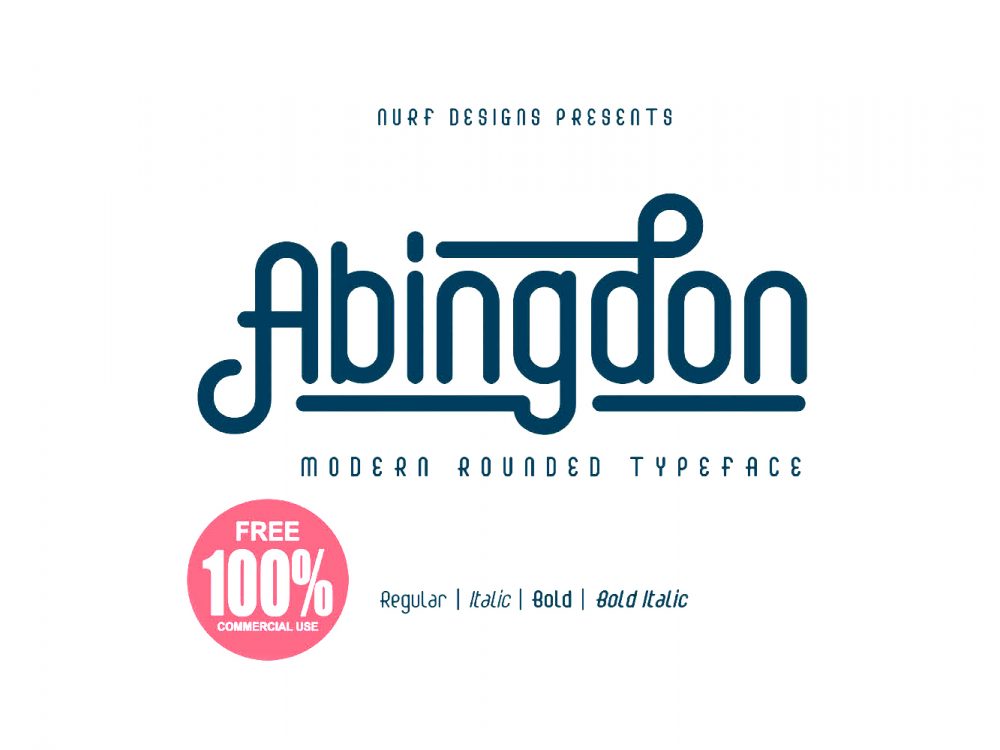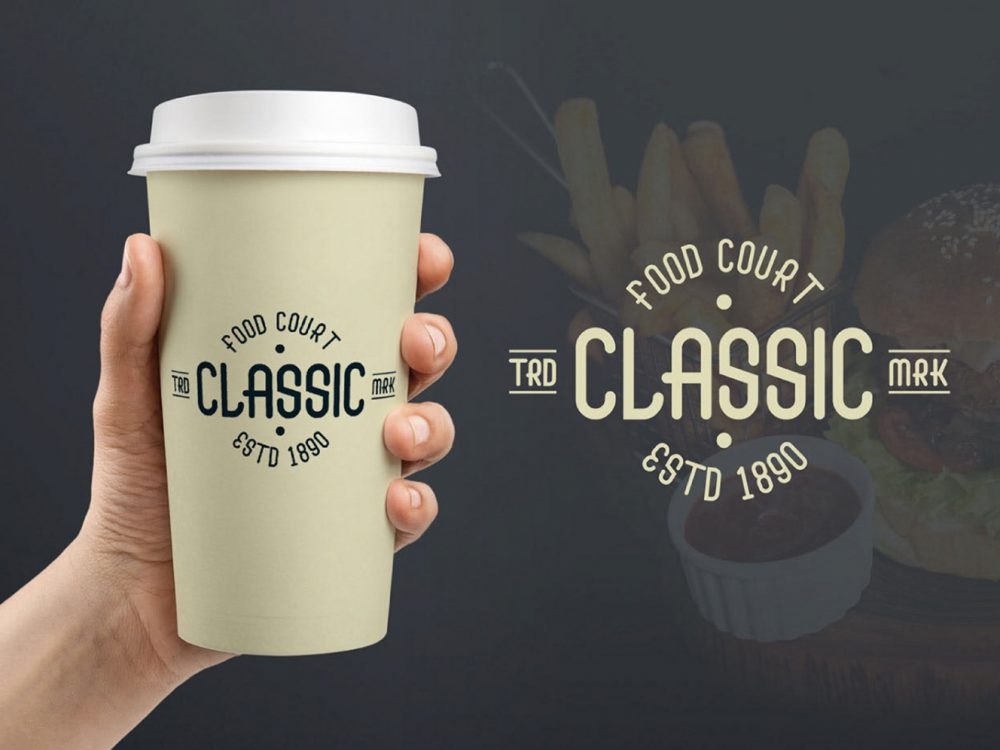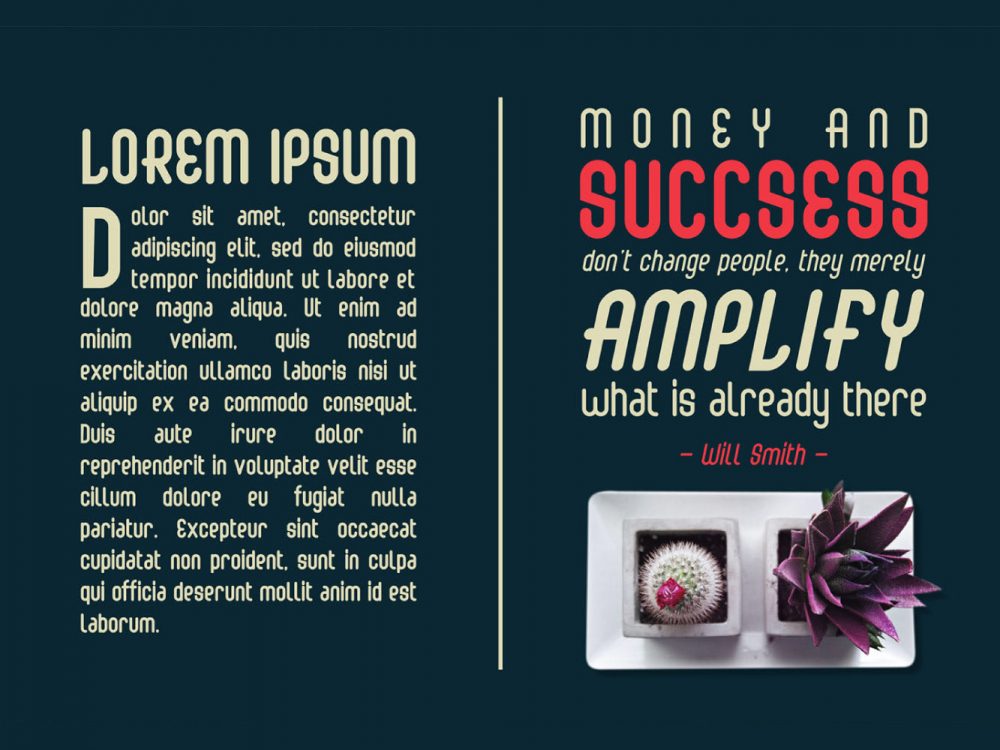
Abingdon Free Font
Abingdon Free Font is an interesting font with a bright and memorable design. This font is composed of four styles that are distinguished by their elegance. Use this font to design posters, prints, logos, branding, invitations, cards, flyers, and more.